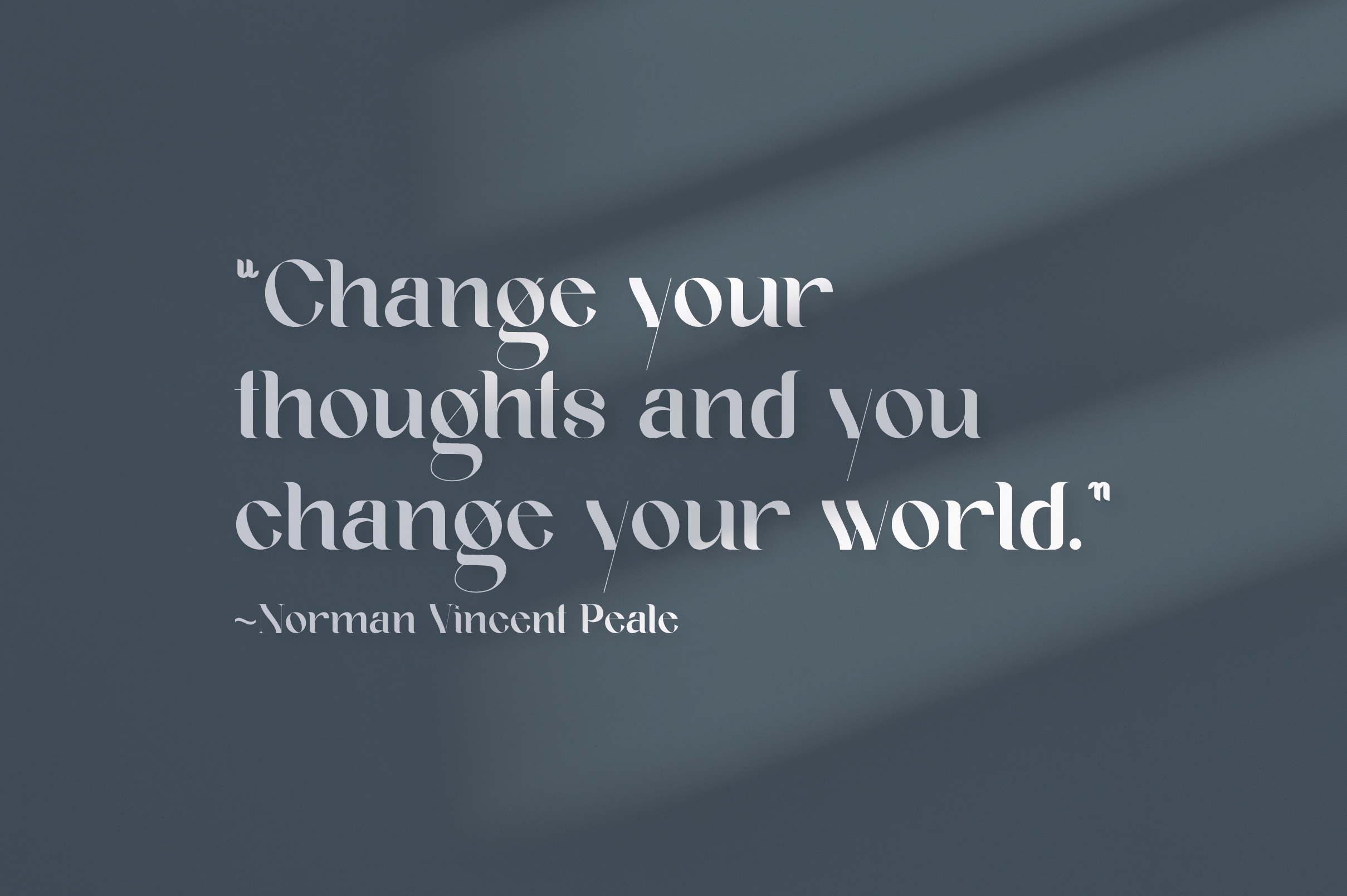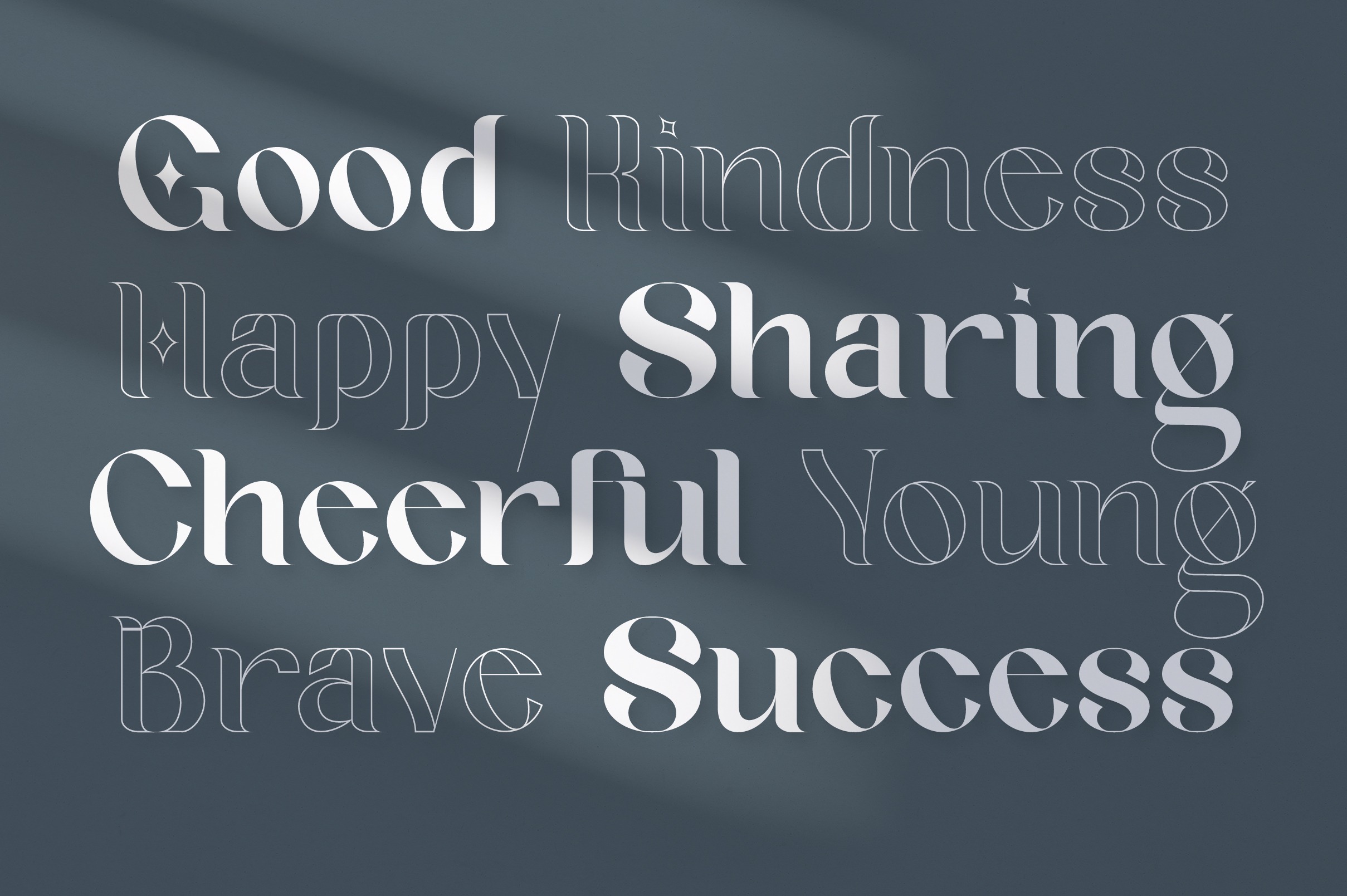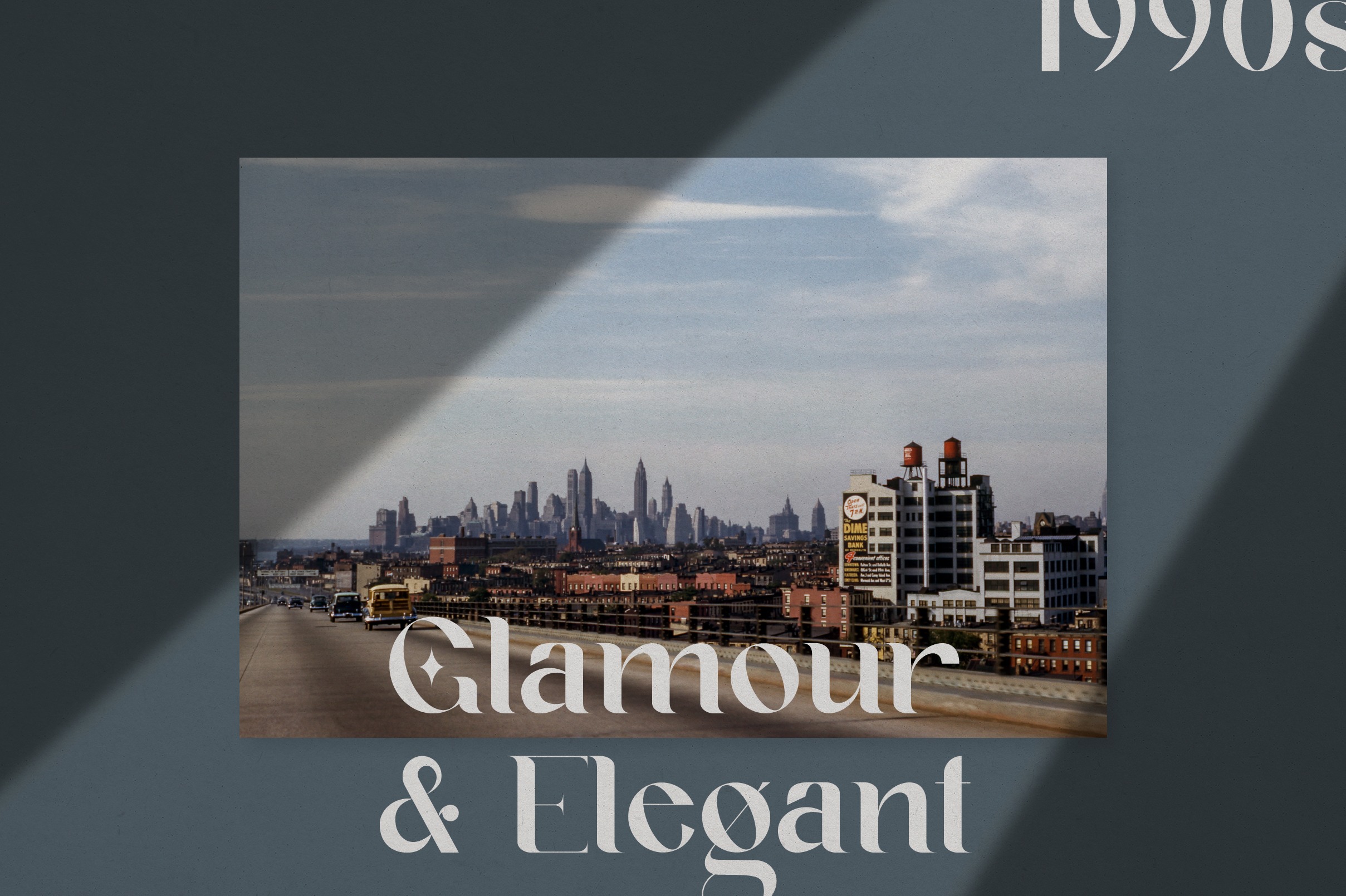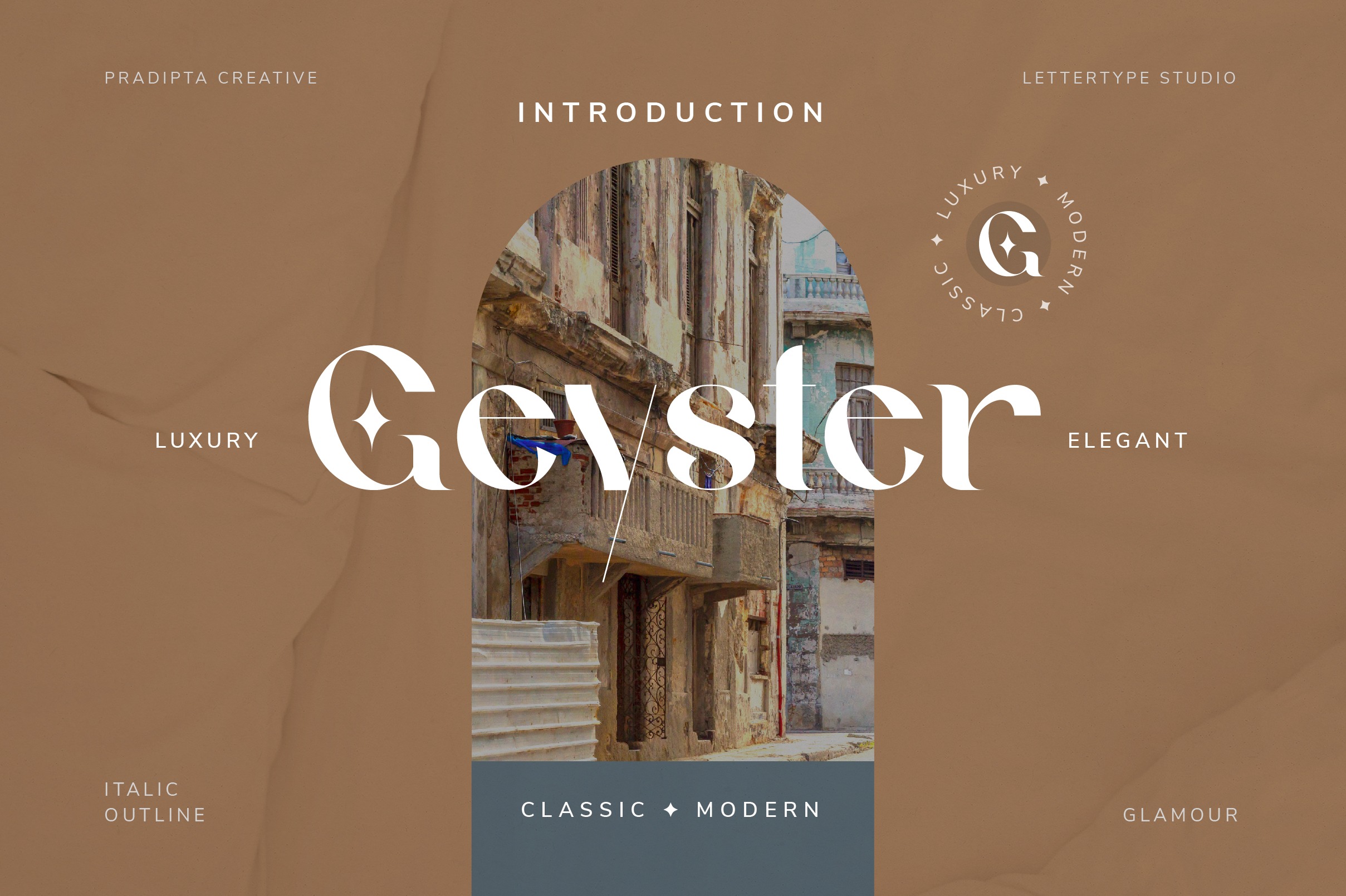
Geyster Serif Font
It’s a simple and casual classic serif font with an undeniably clean feel. This font will be perfect for logo design, branding, clothing, signage, posters, wedding invitations and so much more! My goal in creating this font was to create a mix of serif fonts with modern and classic styles, which will help your project to be more perfect and beautiful.